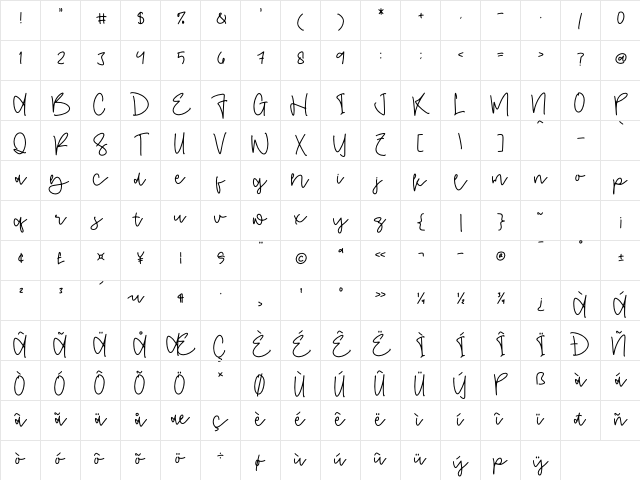
Belligna Sunkiss Regular
Foundry: Perspectype Studio
Designer: Perspectype Studio
Design Context for Belligna Sunkiss
Belligna Sunkiss is a composed and adaptable typeface that performs quietly and consistently across a wide range of design contexts.